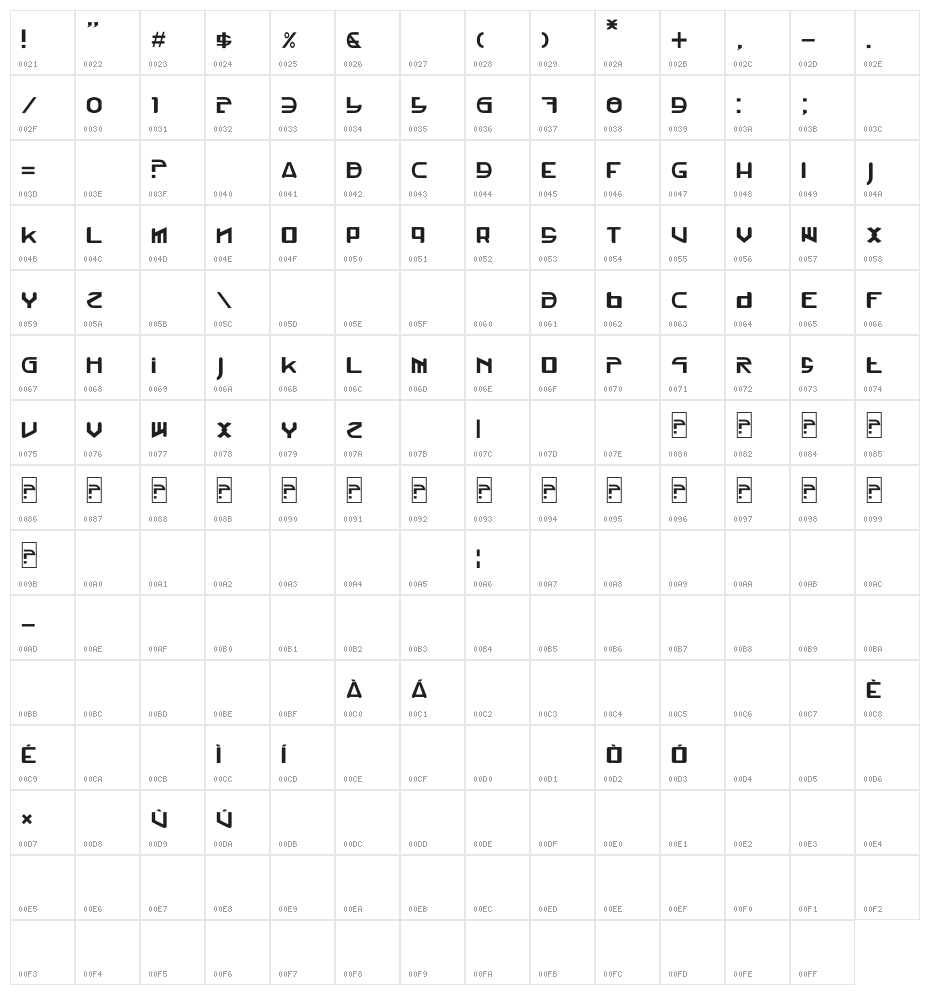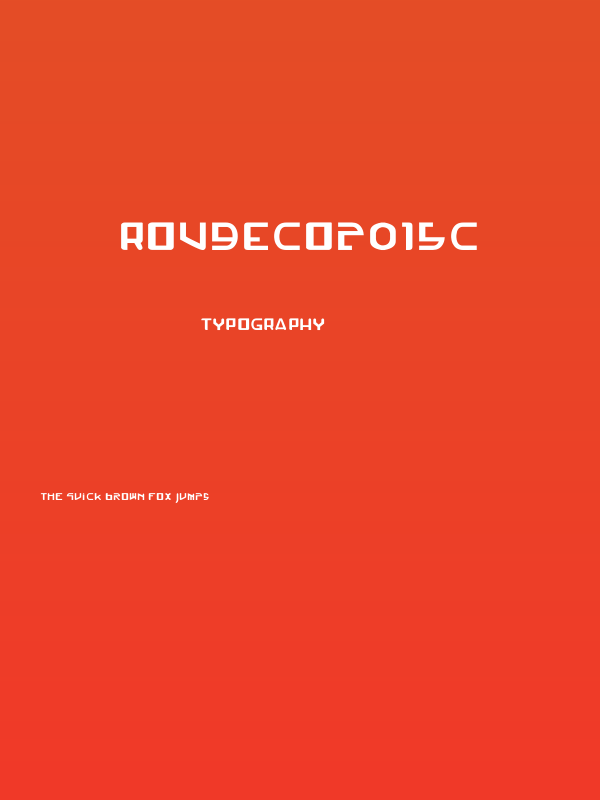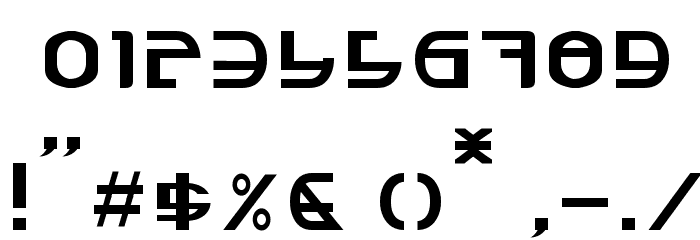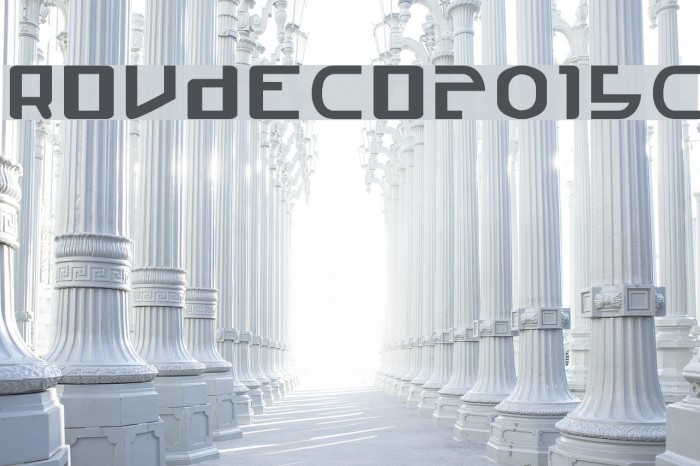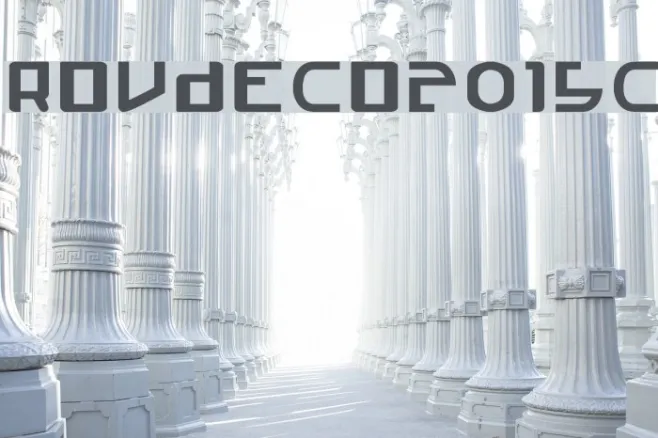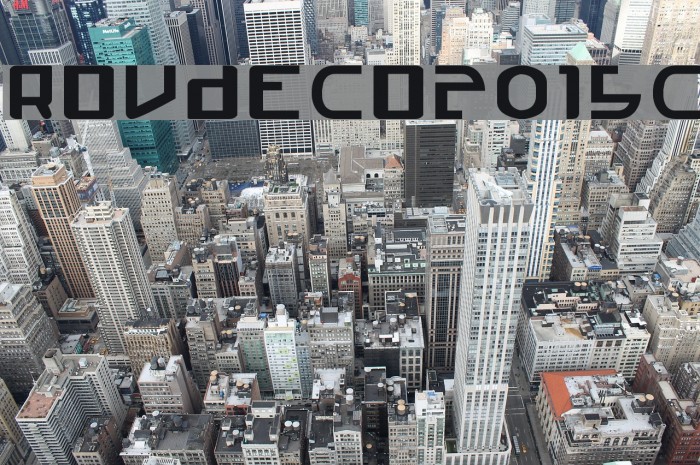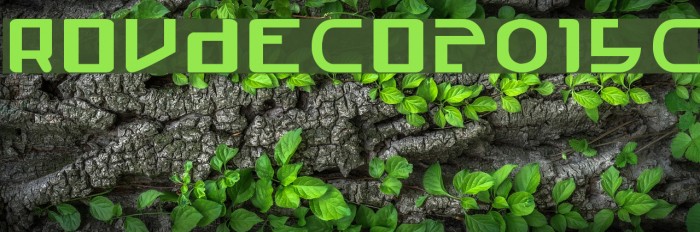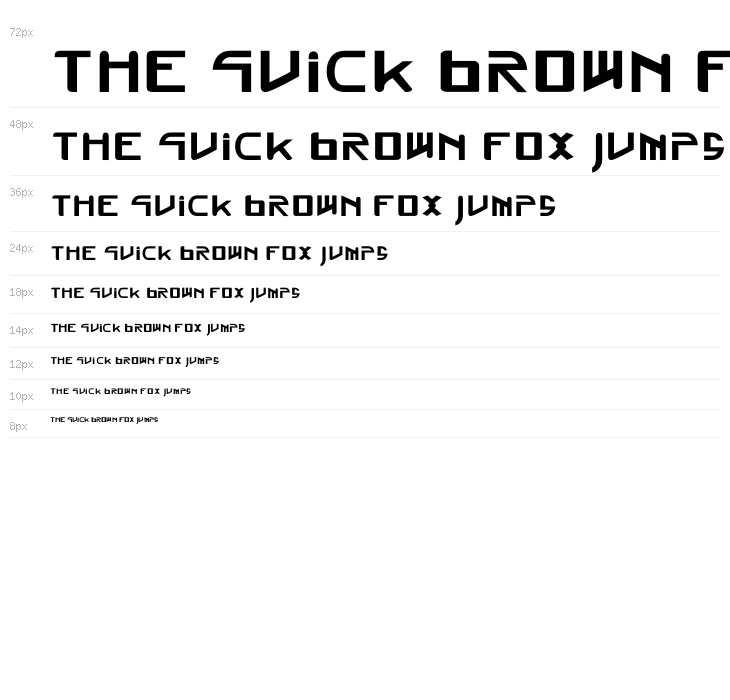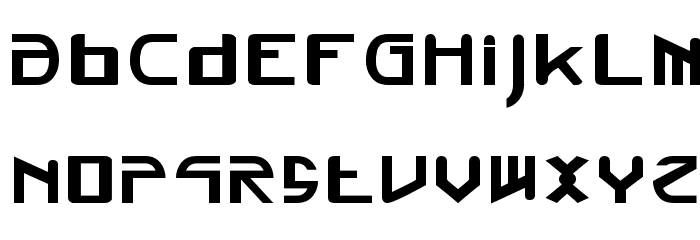
Roudeco2015c Font
Roudeco2015c Description
This font features a bold and futuristic design with geometric shapes and sharp angles. The characters are distinct with a modern, tech-inspired aesthetic, making it ideal for digital and technology-related projects. The uppercase and lowercase letters maintain a consistent style, with unique elements such as slanted lines and cut-off edges that add to its dynamic appearance. The numbers and special characters follow the same design principles, ensuring a cohesive look across all text elements.